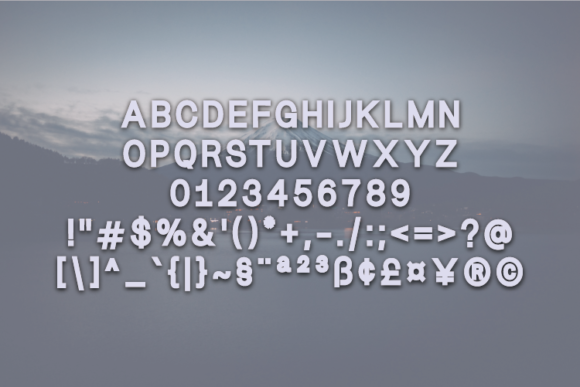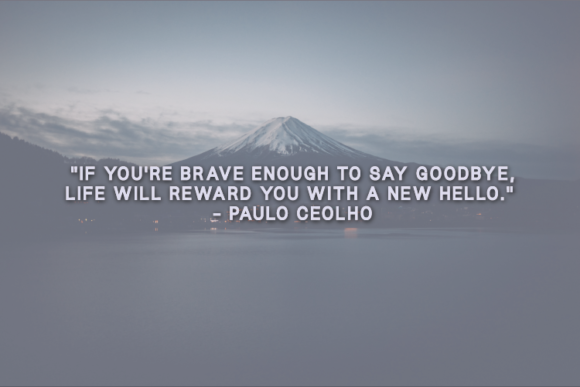
Introduction to Lovined Font
Lovined is a minimal and neat sans serif font.
Key Features of Lovined Font
Why Choose Lovined Font?
Lovined Font offers exceptional quality and versatility, making it a valuable addition to your design toolkit. Whether you’re creating for personal projects or commercial use, Lovined Font delivers professional results.